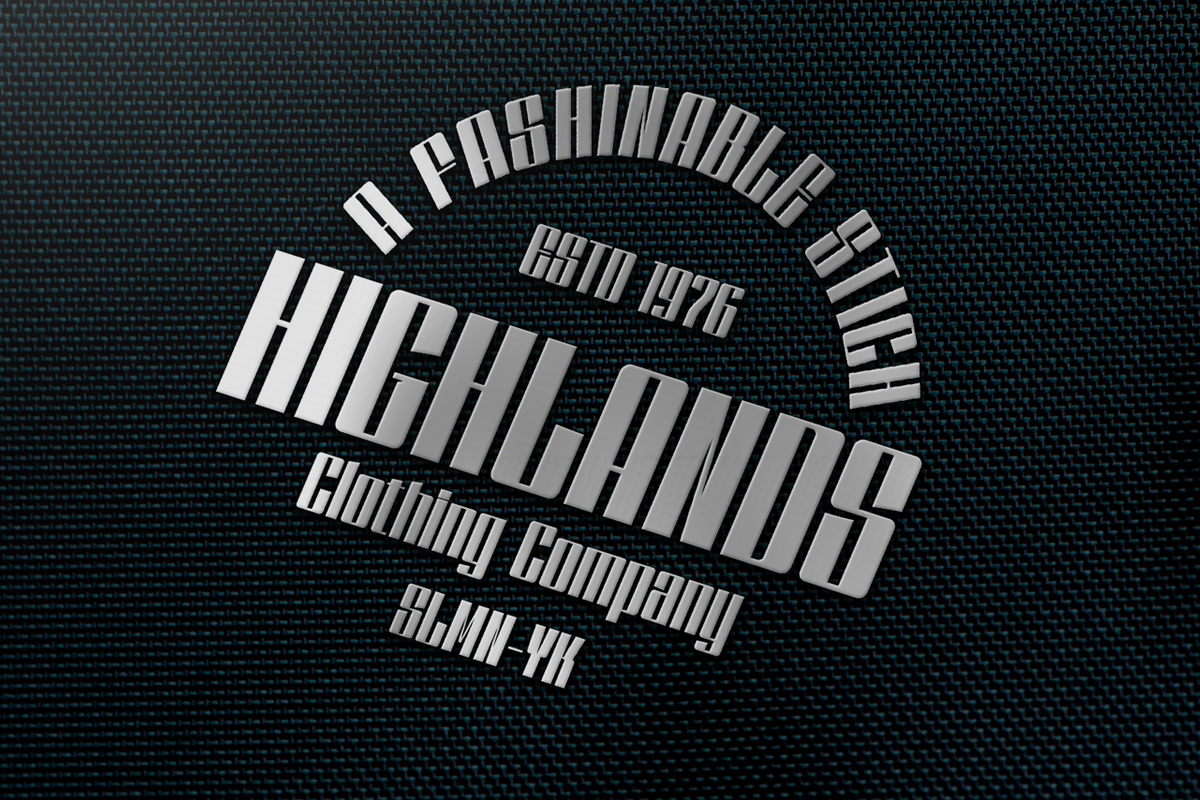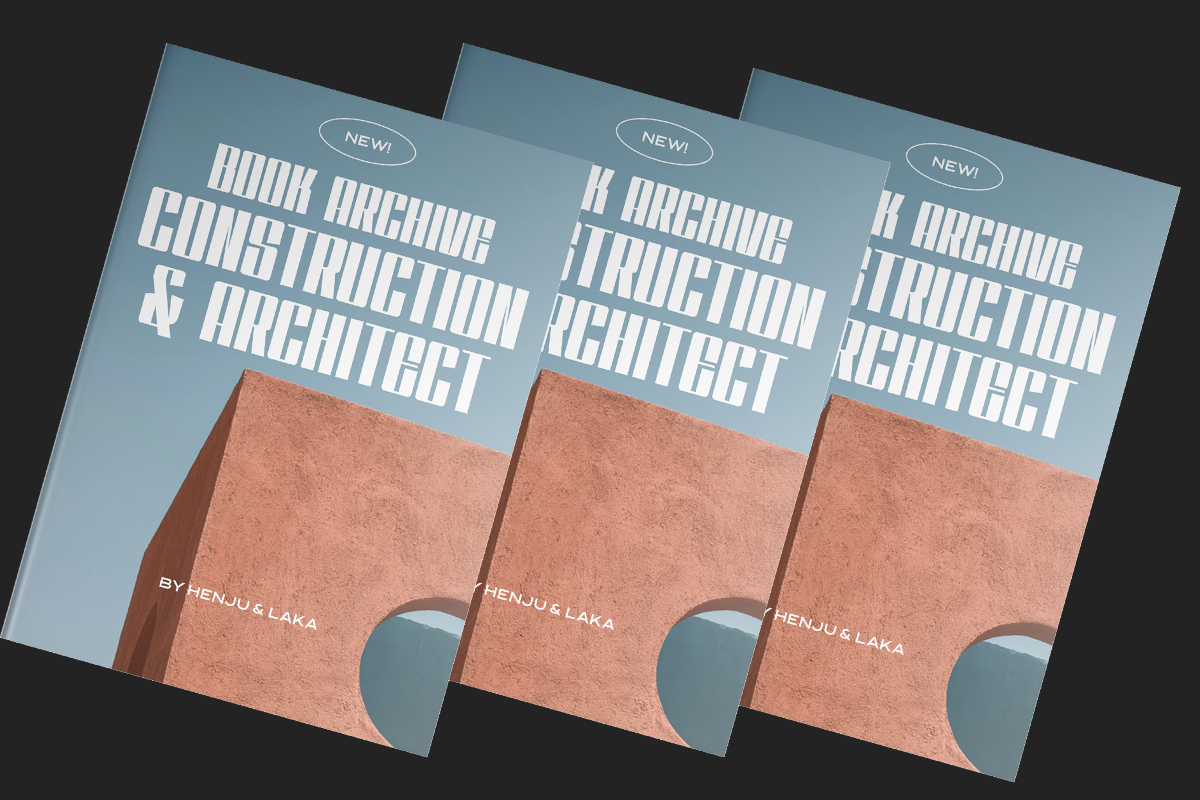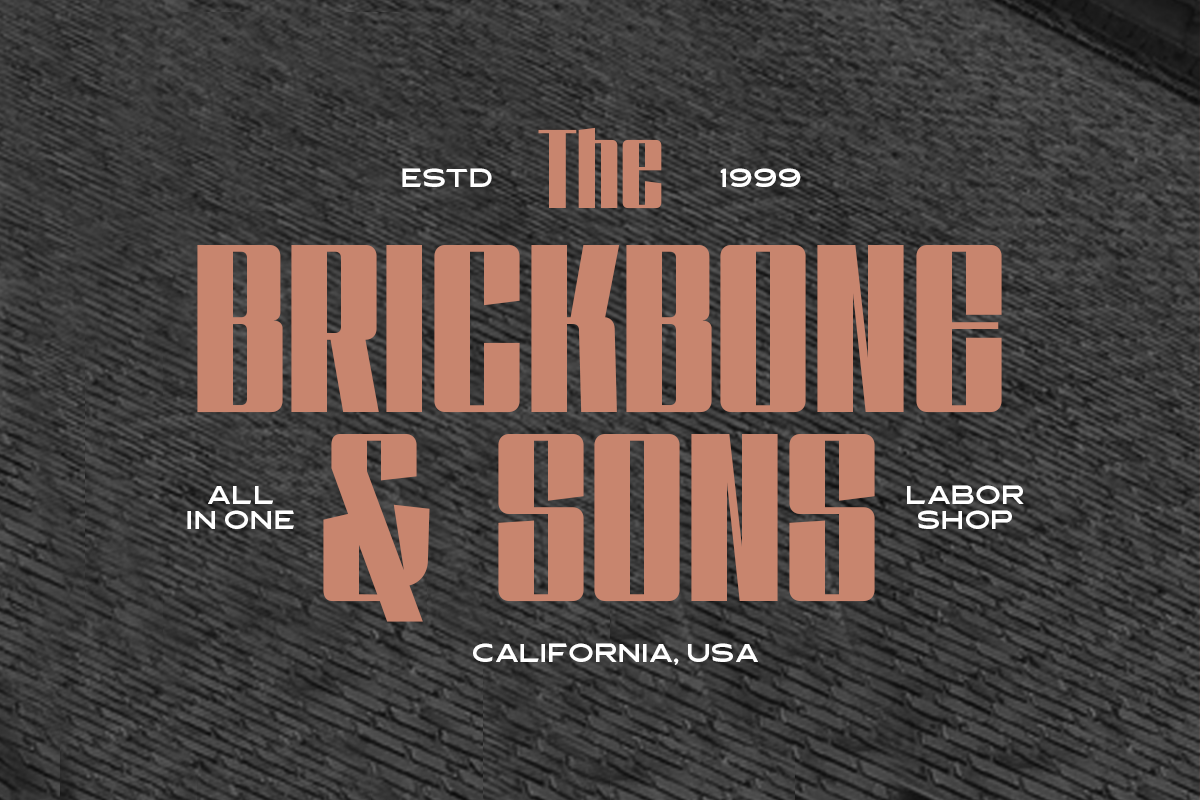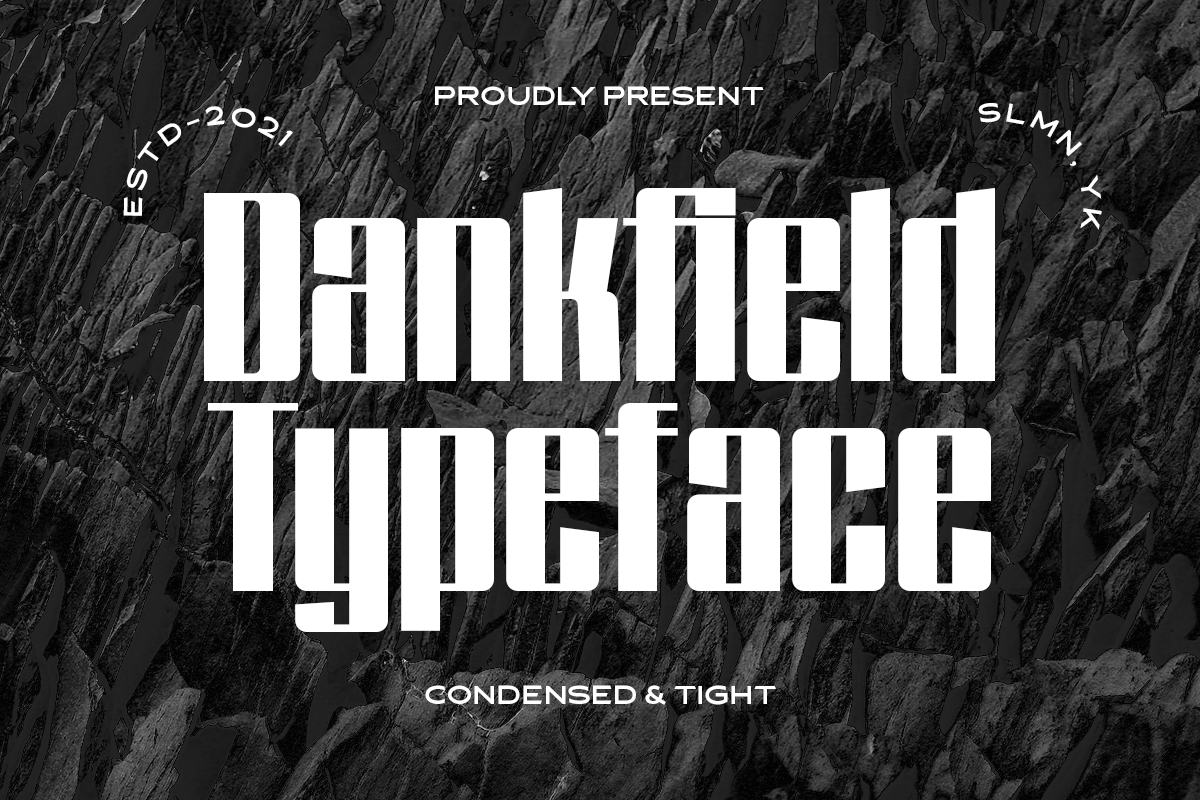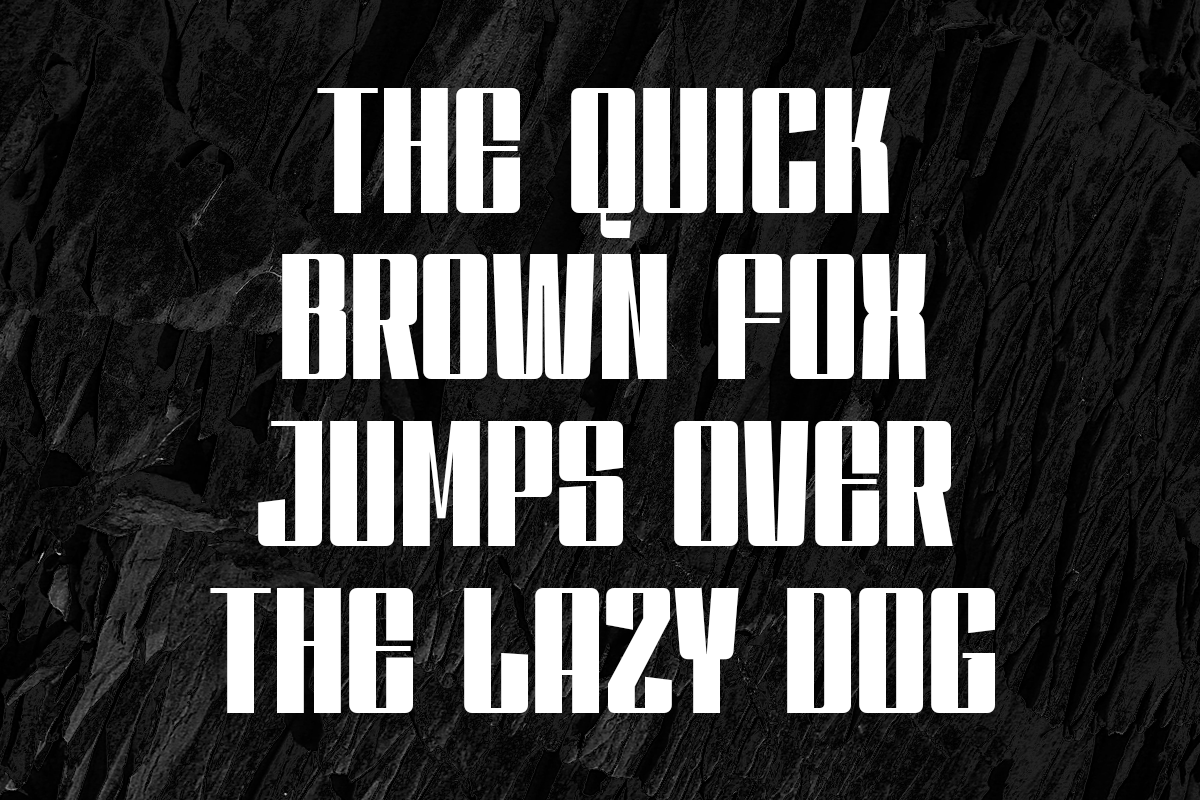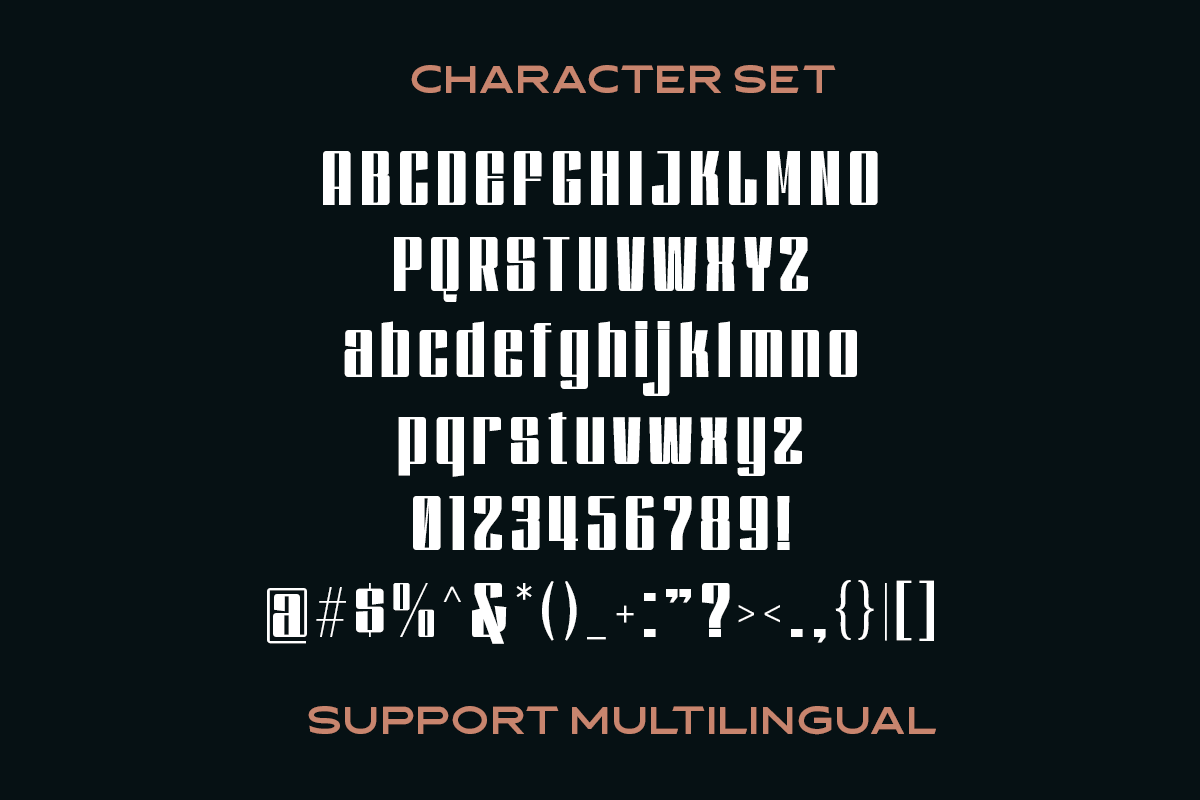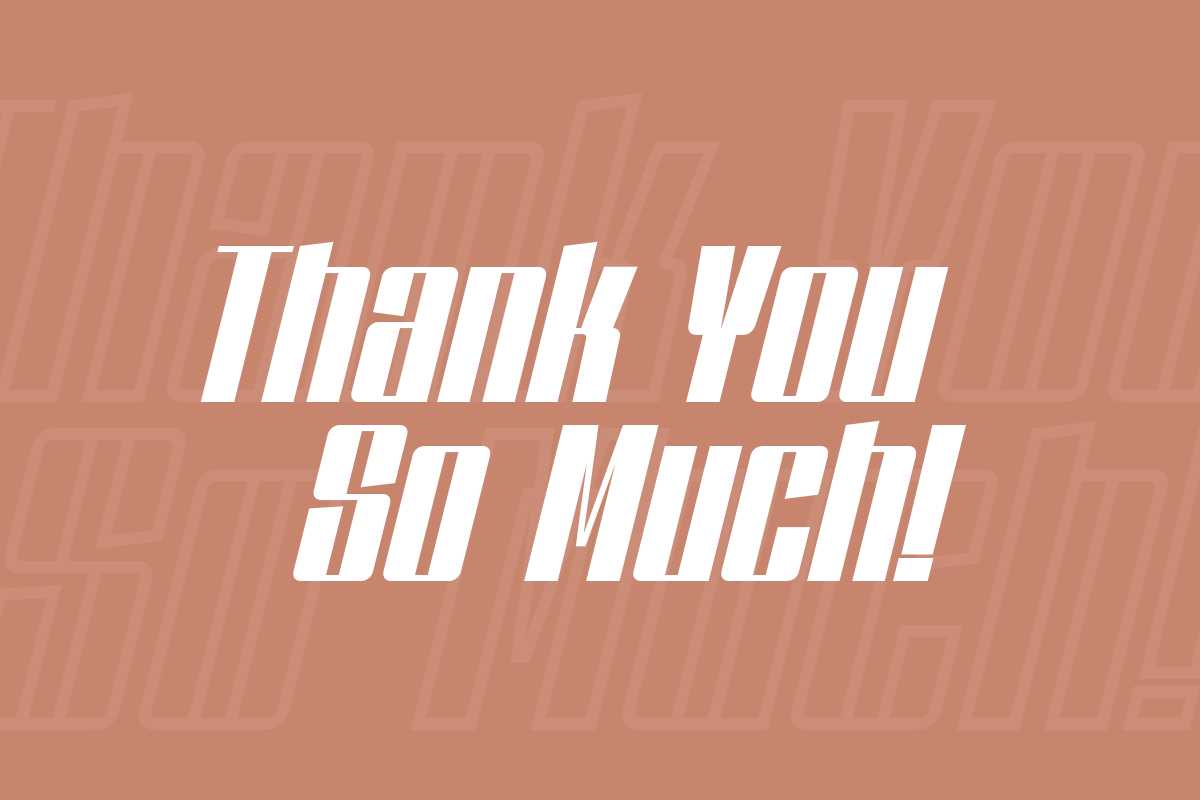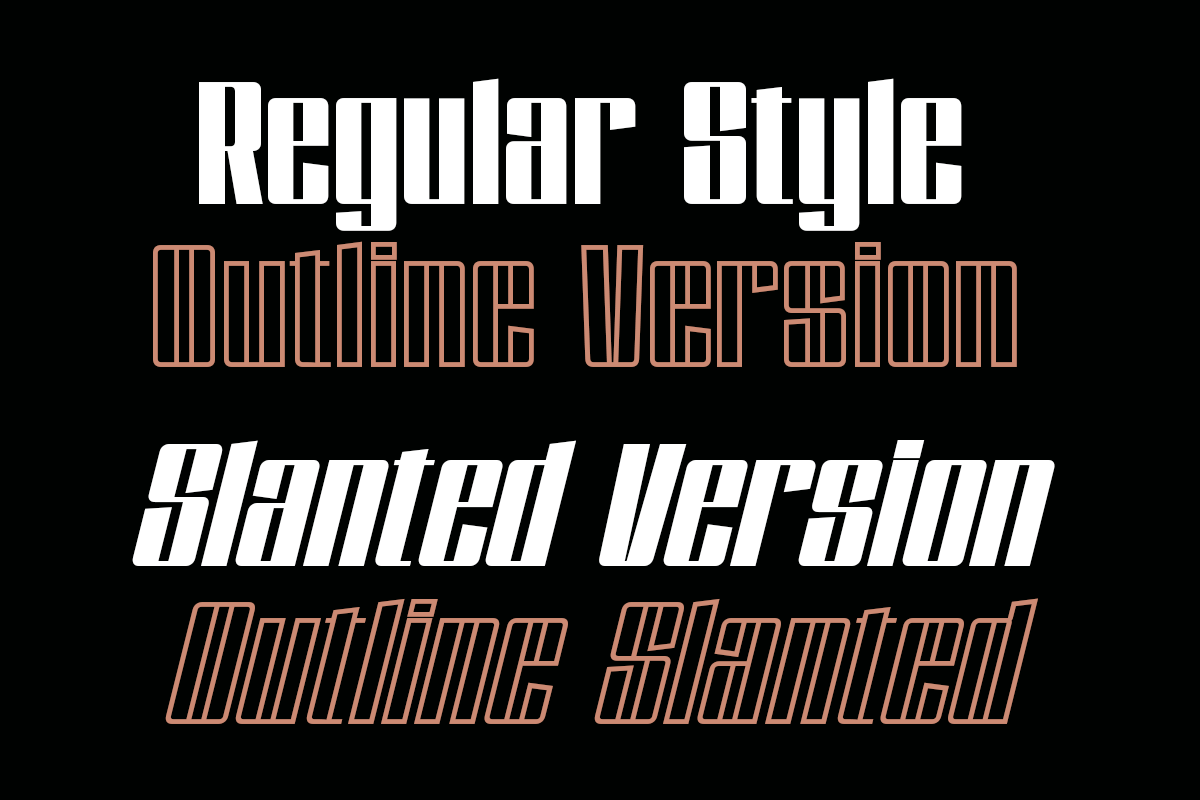
Dankfield - Modern Condensed Font
Introducing, Dankfield. A modern display typeface with high contrast and condensed style, very suitable for futuristic and techno theme. This font perfectly made to be applied especially in logo, and the other various formal forms such as invitations, labels, magazines, books, greeting / wedding cards, packaging, fashion, make up, stationery, novels, labels or any type of advertising purpose.
- Uppercase & lowercase (alternates)
- Stylistic alternates